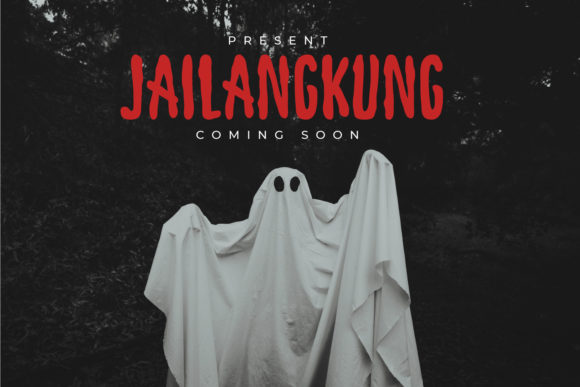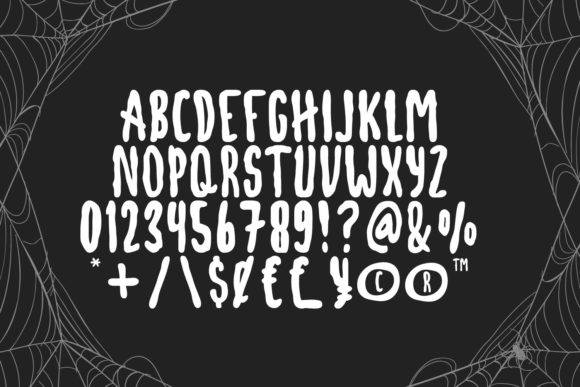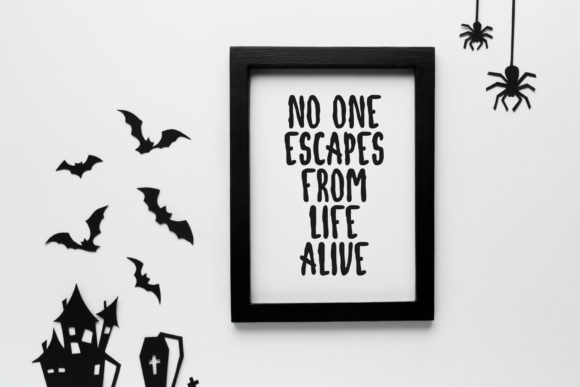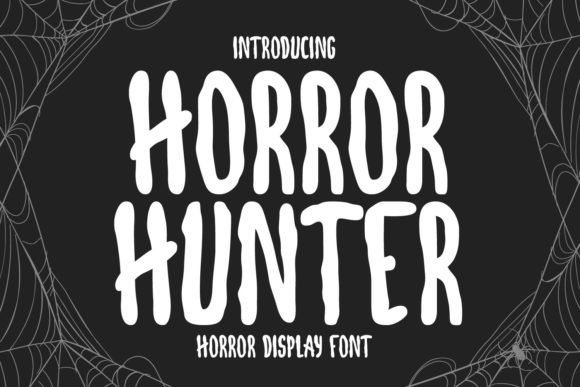
Introduction to Horror Hunter Font
Horror Hunter is a thick-lettered and spooky display font.
It is perfectly suitable for any Halloween-related project or crafty idea The only limit is your imagination.
Horror Hunter Font offers exceptional quality and versatility, making it a valuable addition to your design toolkit. Whether you’re creating for personal projects or commercial use, Horror Hunter Font delivers professional results.